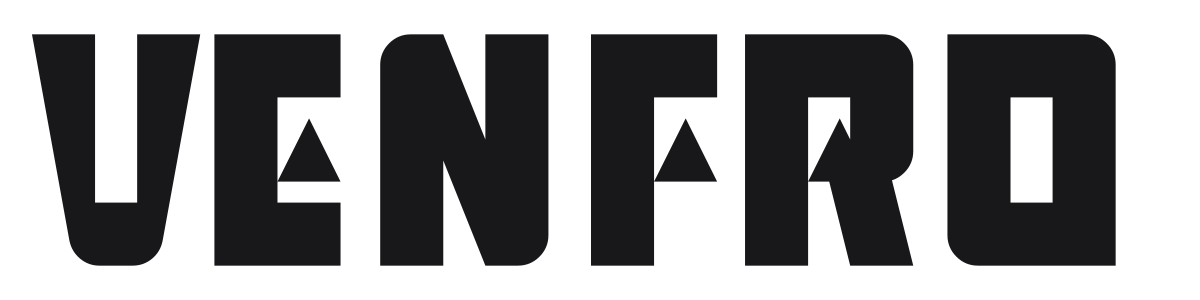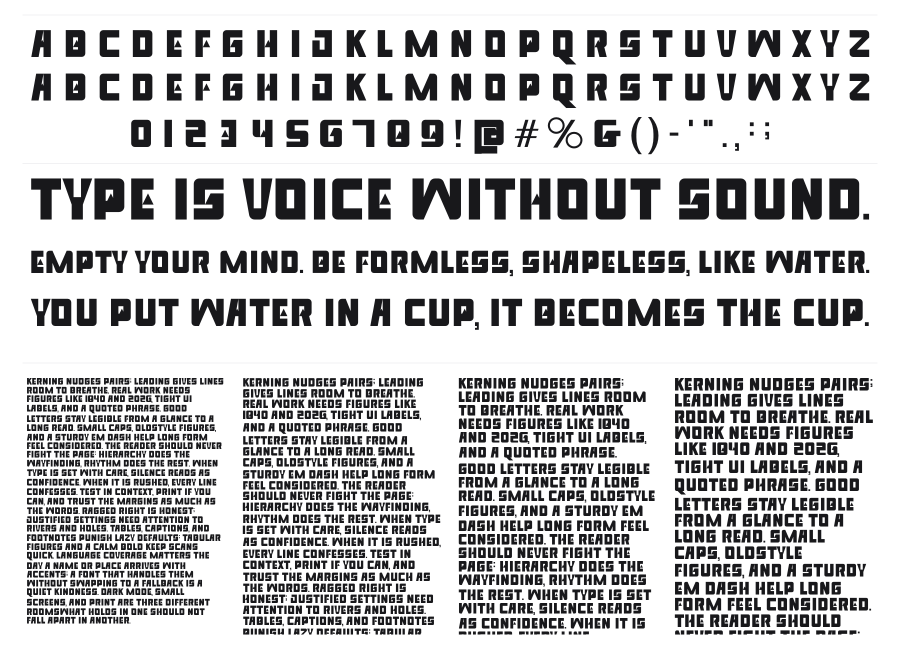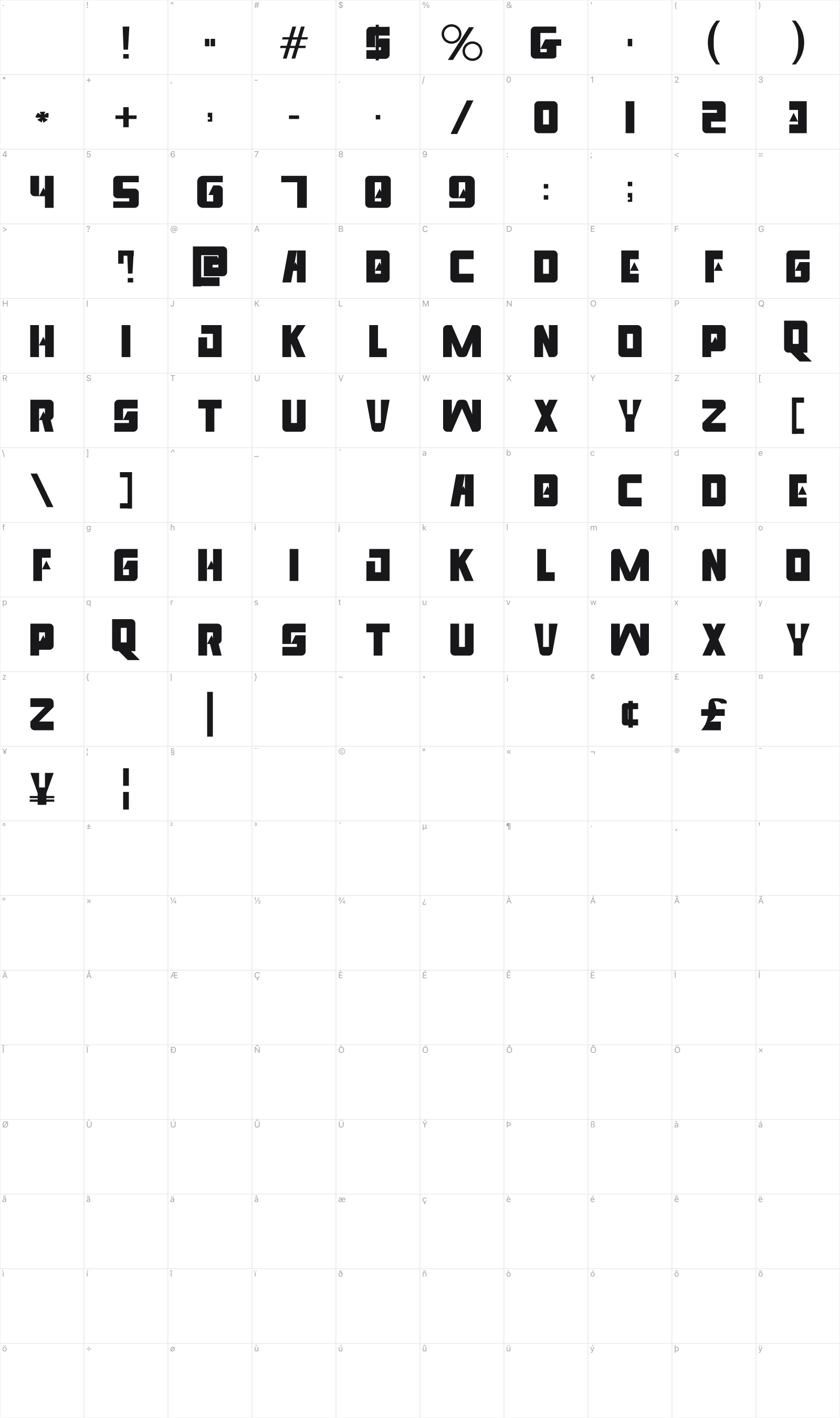
Venfro
Venfro is a bold condensed stencil display face with heavy geometric strokes interrupted by sharp triangular cuts. The construction reads military and industrial, with a contemporary edge that keeps it feeling current rather than dated. Strong at large sizes for posters, titles, and brand identities that need weight and attitude.